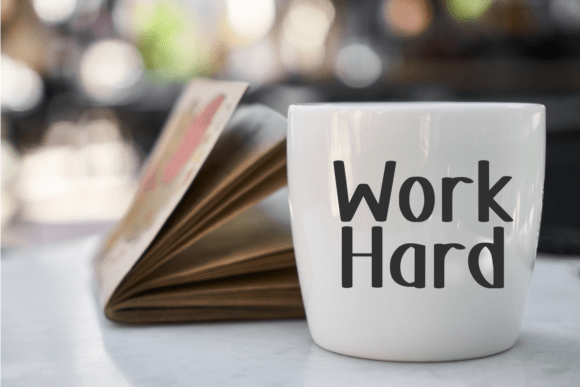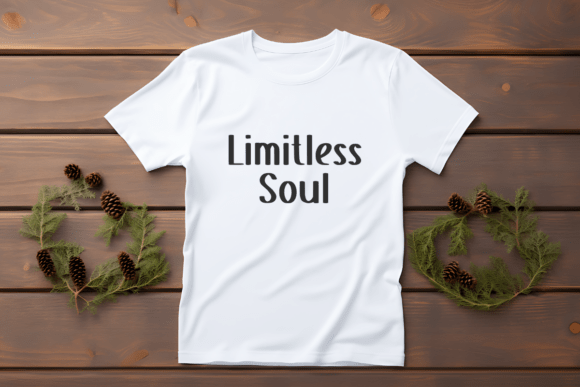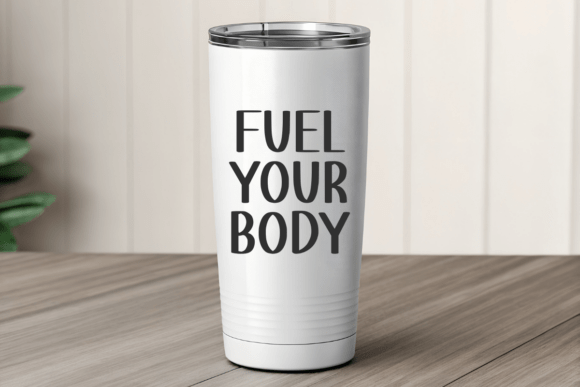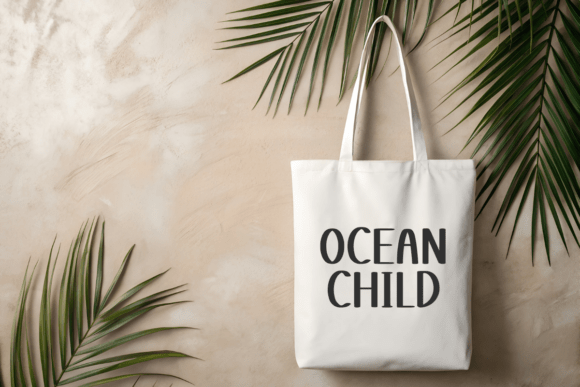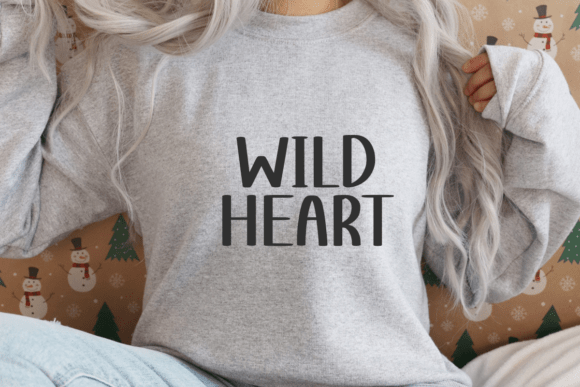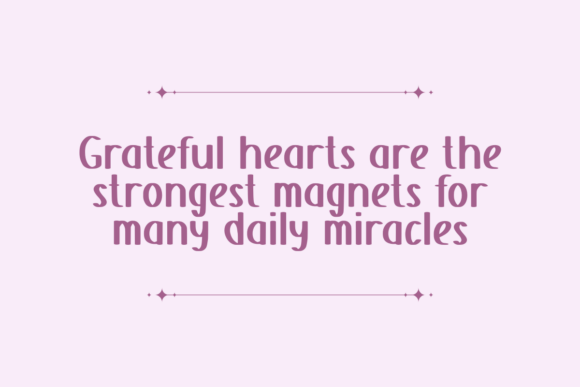
Introducing Beary Smiles Font: The Perfect Handwriting Font for Crafty Projects
Are you a crafter, designer, or DIY enthusiast looking for a font that adds a touch of warmth and friendliness to your projects? Look no further than Beary Smiles Font! This adorable handwriting font is designed to bring a soft, friendly, and natural look to your craft projects, making it perfect for a wide range of applications.
What Makes Beary Smiles Font So Special?
Beary Smiles Font is a cute handwriting font that is designed to evoke a sense of warmth and approachability. Its simple strokes and smooth curves make it easy to read and use in a variety of projects, from craft projects and planners to stickers, kids’ worksheets, and classroom printables. This font is perfect for crafting moms who love adorable handwritten styles and want to add a personal touch to their creations.
Perfect for Crafting and DIY Projects
Beary Smiles Font is a versatile font that can be used in a wide range of crafting and DIY projects. Its smooth curves and simple strokes make it easy to cut using Cricut and Silhouette machines, making it perfect for paper crafting, vinyl cutting, and other DIY projects. Whether you’re creating handmade cards, gift tags, or decorations, Beary Smiles Font is the perfect choice.
Ideas for Using Beary Smiles Font
Beary Smiles Font is a versatile font that can be used in a wide range of projects, including:
- Quotes and posters: Add a touch of warmth and personality to your quotes and posters with Beary Smiles Font.
- Greeting cards: Create beautiful and personalized greeting cards for special occasions using Beary Smiles Font.
- Kids’ labels: Add a fun and playful touch to your kids’ labels and stickers with Beary Smiles Font.
- Coloring pages: Create adorable coloring pages for kids using Beary Smiles Font.
- Worksheets: Add a touch of fun and personality to your kids’ worksheets and educational materials with Beary Smiles Font.
- Bullet journals: Use Beary Smiles Font to add a touch of warmth and personality to your bullet journals and planners.
- Scrapbooks: Create beautiful and personalized scrapbooks using Beary Smiles Font.
- Playful graphic projects: Use Beary Smiles Font to add a touch of fun and personality to your graphic projects, such as posters, flyers, and brochures.
Why Choose Beary Smiles Font?
There are many reasons why Beary Smiles Font is the perfect choice for your crafting and DIY projects. Here are just a few:
- Unique and adorable design: Beary Smiles Font has a unique and adorable design that is sure to add a touch of personality to your projects.
- Easy to read: Beary Smiles Font is easy to read, even at small sizes, making it perfect for a wide range of projects.
- Versatile: Beary Smiles Font can be used in a wide range of projects, from craft projects and planners to stickers, kids’ worksheets, and classroom printables.
- Compatible with Cricut and Silhouette: Beary Smiles Font is compatible with Cricut and Silhouette machines, making it easy to cut and use in your DIY projects.
If you’re looking for a font that adds a touch of warmth and friendliness to your crafting and DIY projects, look no further than Beary Smiles Font. This adorable handwriting font is perfect for a wide range of applications, from craft projects and planners to stickers, kids’ worksheets, and classroom printables. Its simple strokes and smooth curves make it easy to read and use, and its compatibility with Cricut and Silhouette machines make it easy to cut and use in your DIY projects. So why wait? Download Beary Smiles Font today and start adding a touch of personality to your projects!